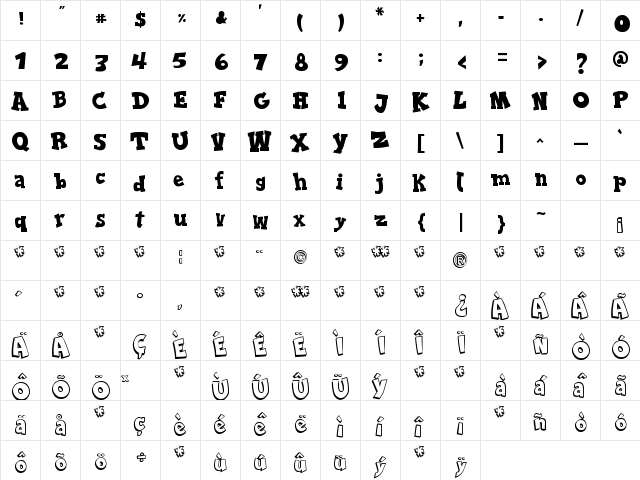
Serifa Comica Regular
| Foundry | Galdino Otten |
| Designer | Galdino Otten |
Design Context for Serifa Comica Typeface
Serifa Comica trades formality for fun, with bouncy, characterful letterforms that bring warmth and energy to any project.
Font Pairing: Pairs well with a rounded or humanist sans for body copy, maintaining the friendly tone without relying on Serifa Comica to carry extended reading.
Pro Tip: Avoid using Serifa Comica for long passages of text — it works best for headlines, labels, and short calls to action.